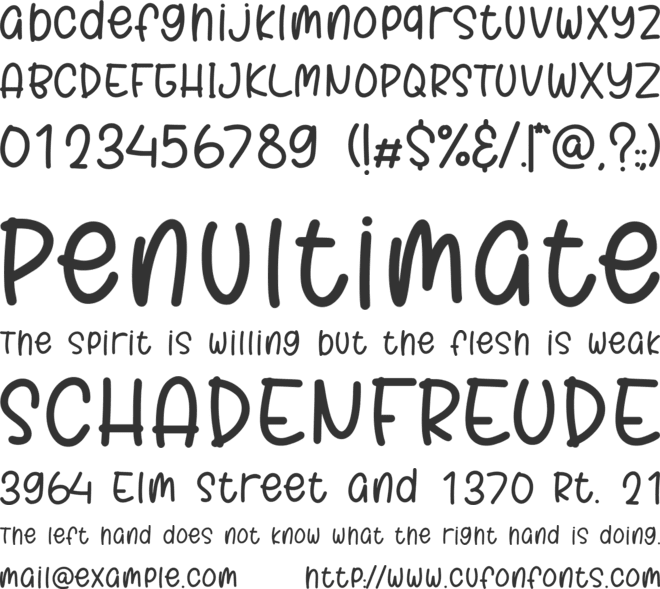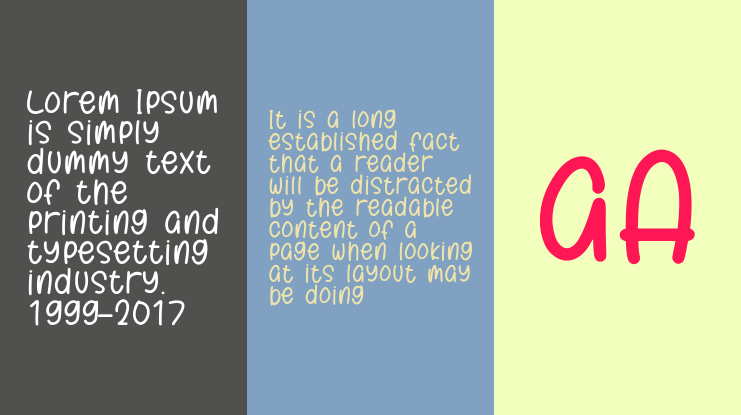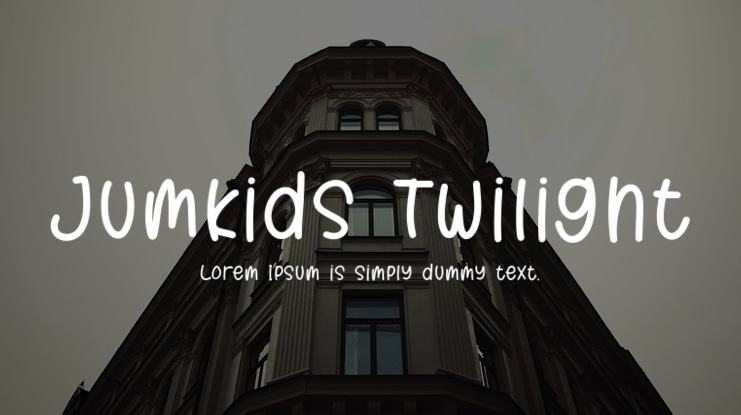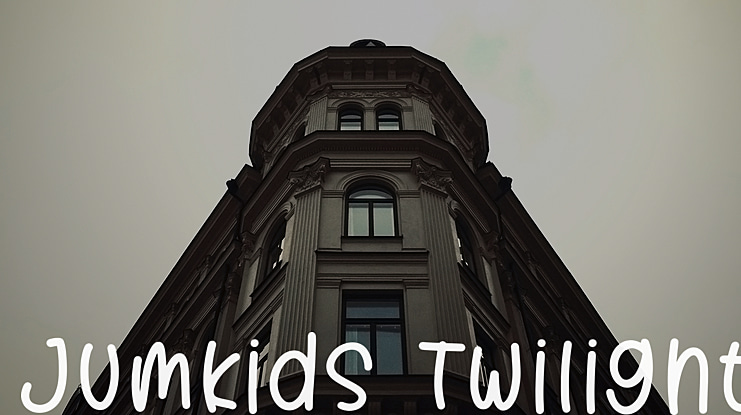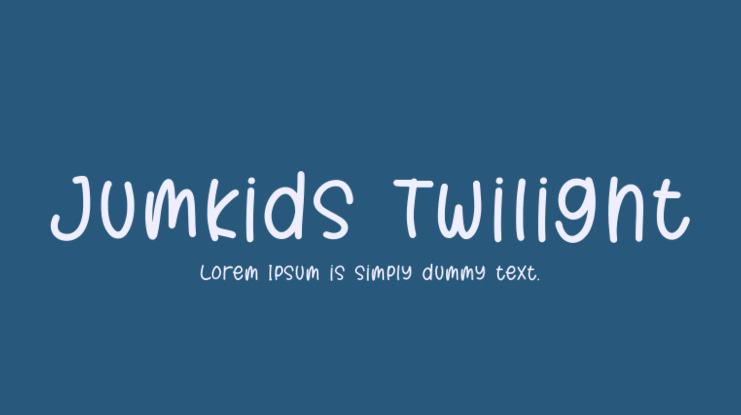
Jumkids Twilight Font
Proudly Present, Jumkids Twilight
Jumkids Twilight is a Kids Handwritten Font
Jumkids Twilight is perfect for product packaging, branding project, megazine, social media, wedding, or just used to express words above the background.
Jumkids Twilight font preview